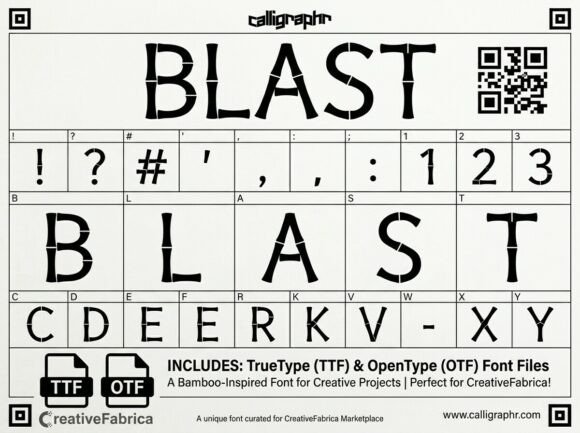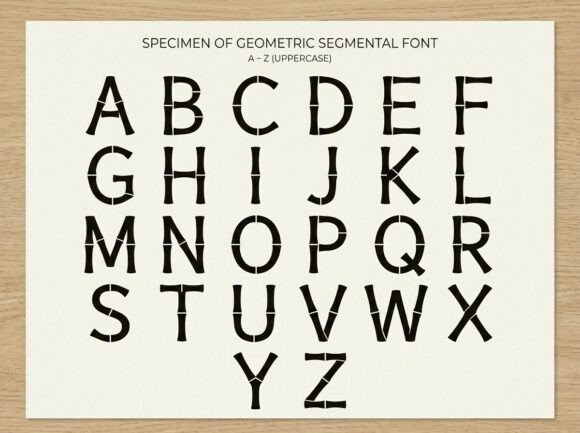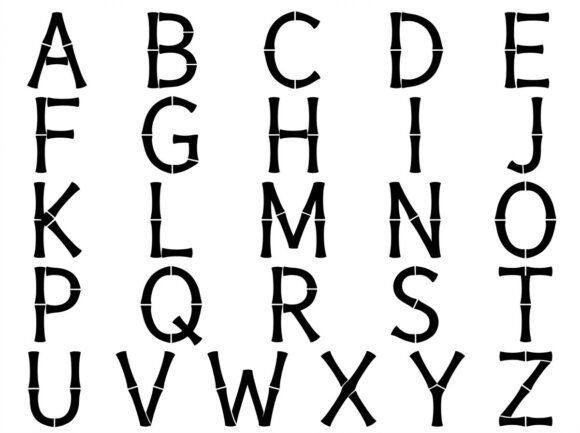
Introducing Blast Font: Elevate Your Creative Projects with a Decorative Display Font
Are you tired of using the same old fonts for your creative projects? Do you want to make a statement and break away from the ordinary? Look no further than Blast Font, a decorative display font designed to be the centerpiece of any layout. With its distinct artistic elements and strong character, Blast Font is perfect for creators who want to add a touch of personality to their work.
What Makes Blast Font Special?
Blast Font is a unique and powerful tool for designers and crafters. Its bold and eye-catching design makes it perfect for a variety of applications, from bold headlines to creative branding and packaging. The font delivers a high-end, professional aesthetic without compromising on personality, making it ideal for projects that require a touch of sophistication and style.
Key Features of Blast Font
Technical Note: All-Caps Display Typeface
By design, Blast Font is an all-caps display typeface, which means it does not contain lowercase letters. This makes it a powerful tool for logos, titles, and decorative initials. The all-caps design also adds to the font’s bold and eye-catching aesthetic, making it perfect for projects that require a strong visual statement.
Uses for Blast Font
Blast Font is a versatile font that can be used for a variety of applications, including:
• Bold Headlines: Use Blast Font to create bold and eye-catching headlines for your blog posts, articles, and social media posts.
• Creative Branding: Use Blast Font to create unique and memorable branding for your business, including logos, business cards, and letterheads.
• Packaging: Use Blast Font to add a touch of personality to your product packaging, making it stand out on store shelves.
• Decorative Initials: Use Blast Font to create decorative initials for your designs, adding a touch of elegance and sophistication.
Benefits of Using Blast Font
Using Blast Font can bring a number of benefits to your creative projects, including:
• Increased Visual Impact: Blast Font’s bold and eye-catching design makes it perfect for projects that require a strong visual statement.
• Improved Brand Recognition: Using a unique and memorable font like Blast Font can help to improve brand recognition and make your business stand out.
• Enhanced Creativity: Blast Font’s artistic elements and strong character can help to inspire creativity and add a touch of personality to your designs.
Blast Font is a powerful and versatile font that is perfect for designers and crafters who want to add a touch of personality to their creative projects. With its distinct artistic elements and strong character, Blast Font is ideal for a variety of applications, from bold headlines to creative branding and packaging. Whether you’re looking to make a statement or simply want to try something new, Blast Font is a great choice.